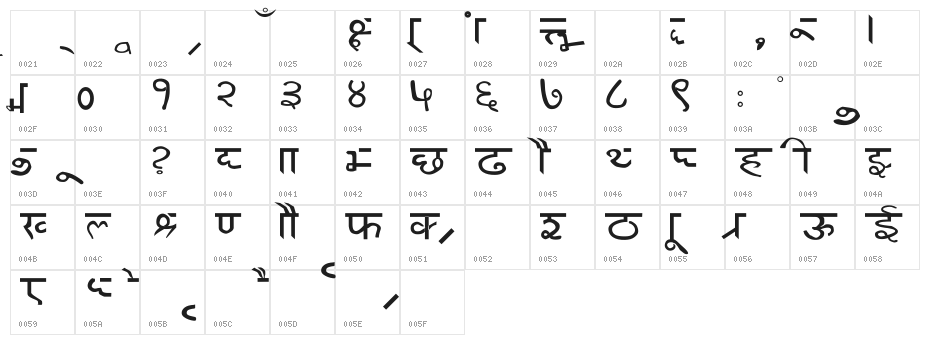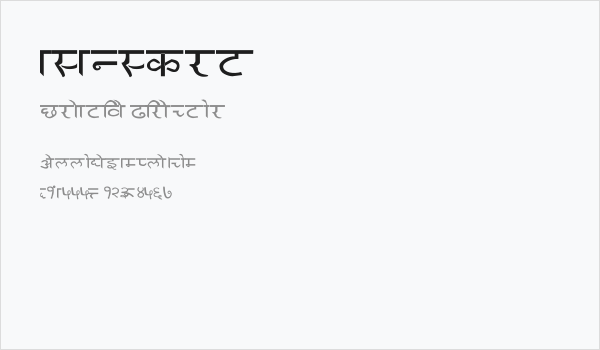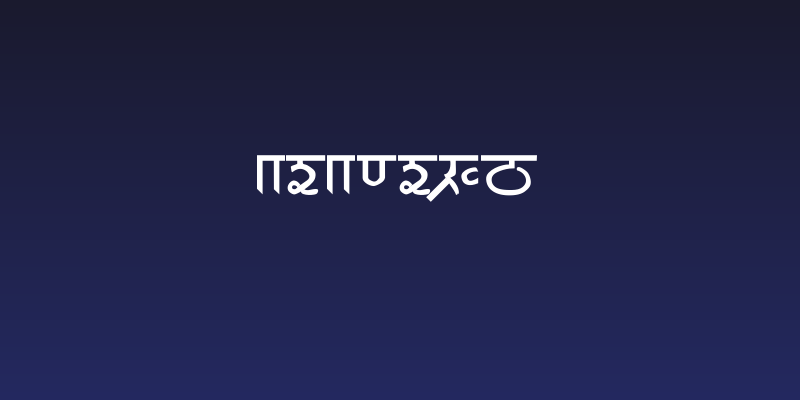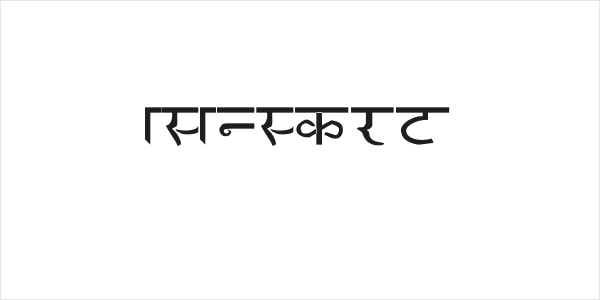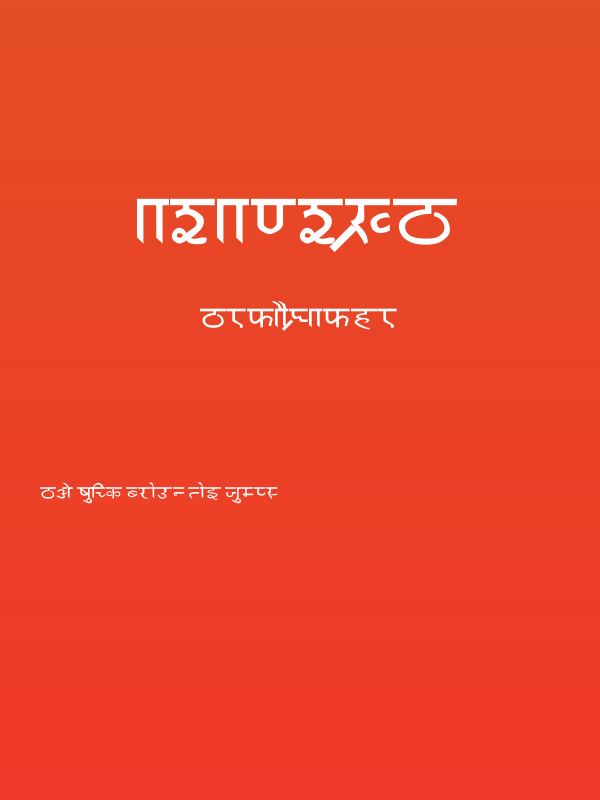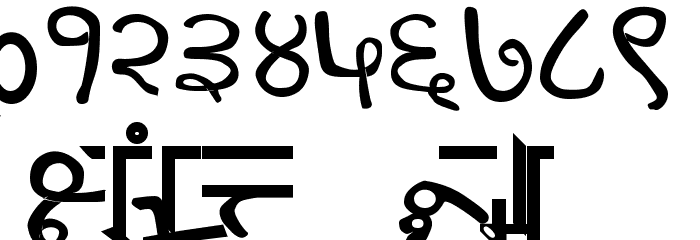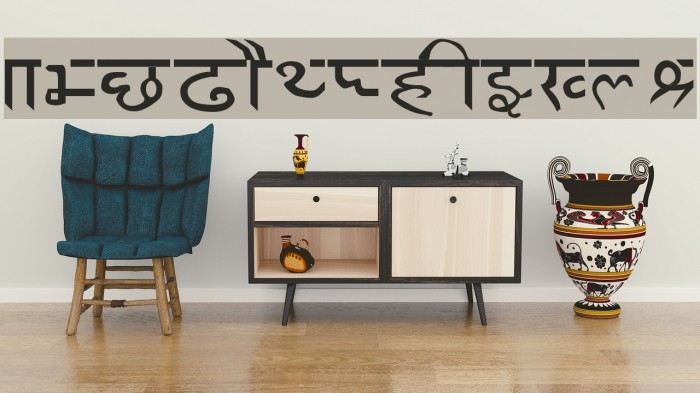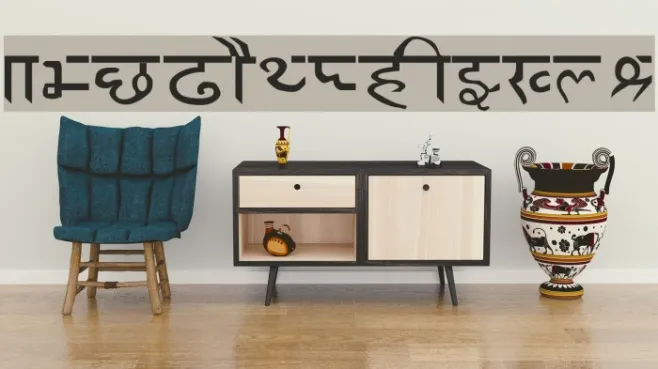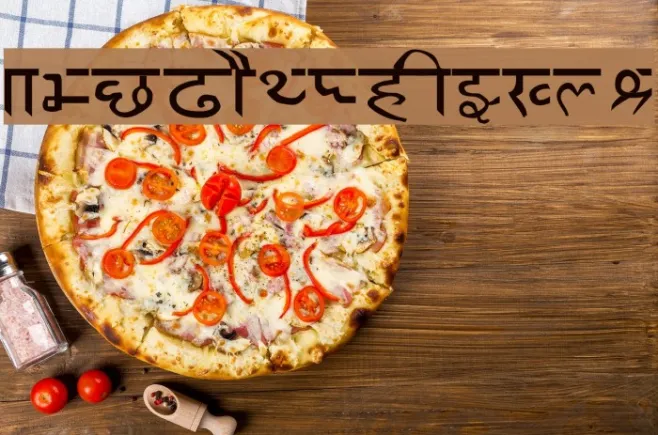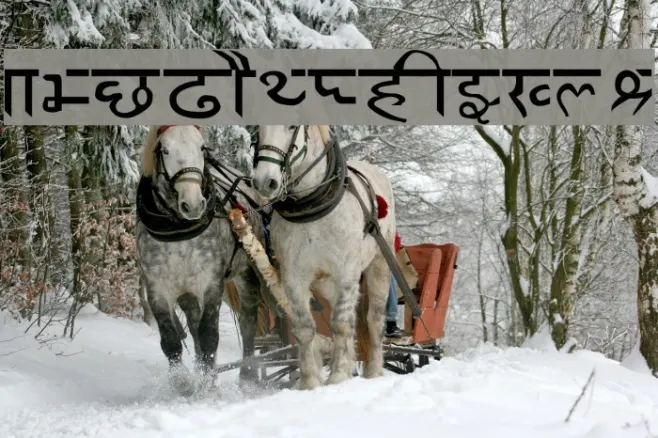
asanskrt Font
asanskrt Description
This font showcases a traditional Devanagari script with a modern twist. The characters are bold and well-defined, featuring a consistent stroke width that provides a clean and legible appearance. The script maintains the classic horizontal line across the top, known as the 'Shirorekha', which is a distinctive feature of Devanagari. The characters are slightly rounded, giving them a softer look while retaining the angularity typical of this script. The numerals are designed to complement the letters, maintaining the same stylistic elements. This font is ideal for projects that require a touch of cultural authenticity combined with modern readability.
| Use Case | Headlines, Logos, Cultural Publications |
| Proposed Projects | Ideal for cultural publications, educational materials, and branding that requires a traditional yet modern look. |